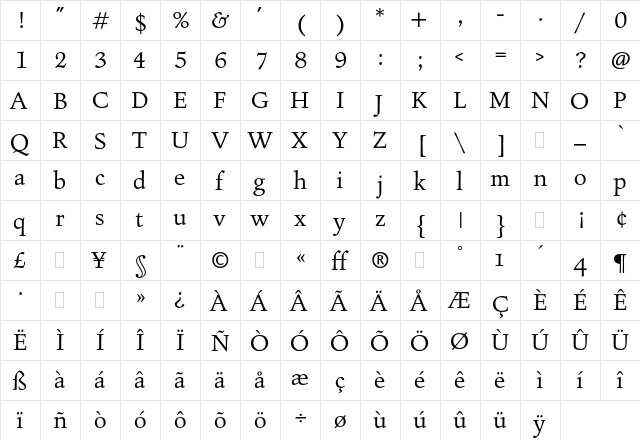
Figural Book Plain
Design Context for Figural Book Typeface
Figural Book takes a measured approach to typography — its balanced proportions and neutral character make it a reliable workhorse for both digital and print work.
Pro Tip: Use Figural Book in both headline and body roles to test its range before committing to a single application.